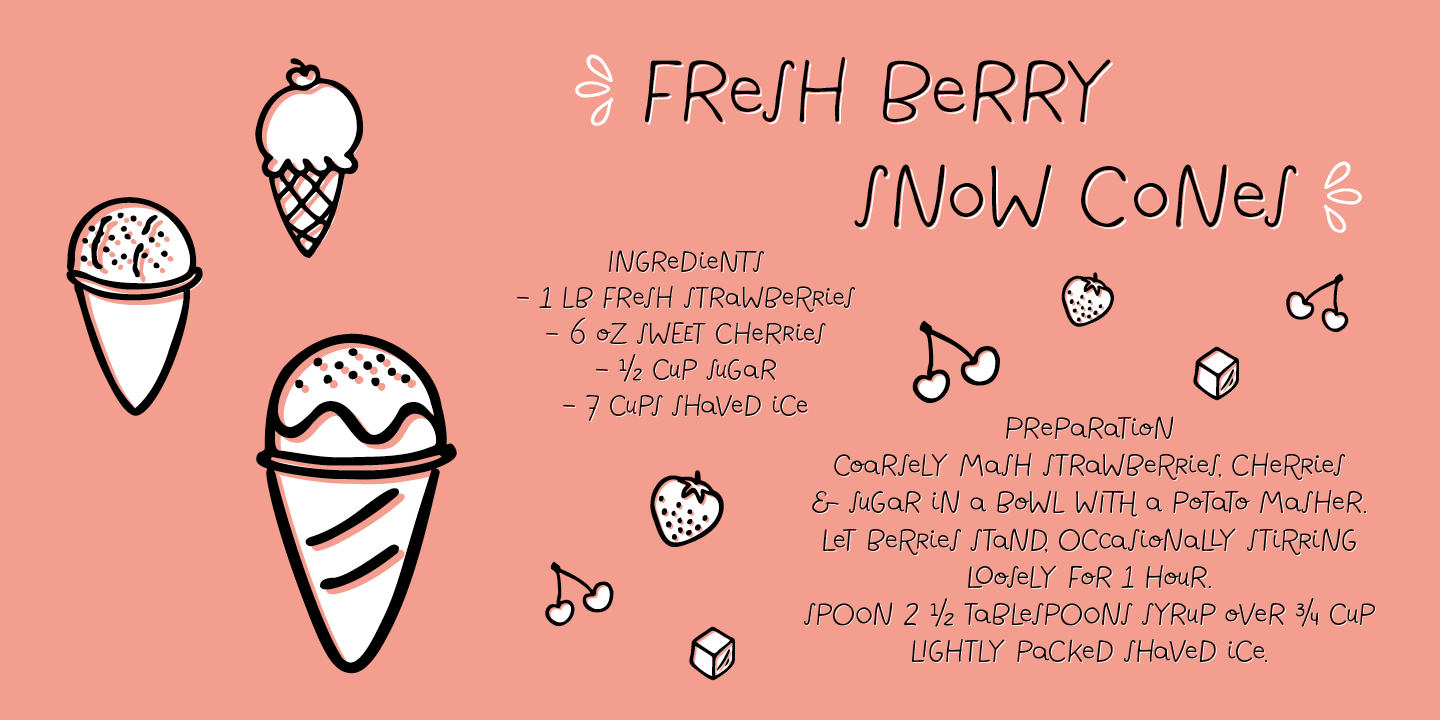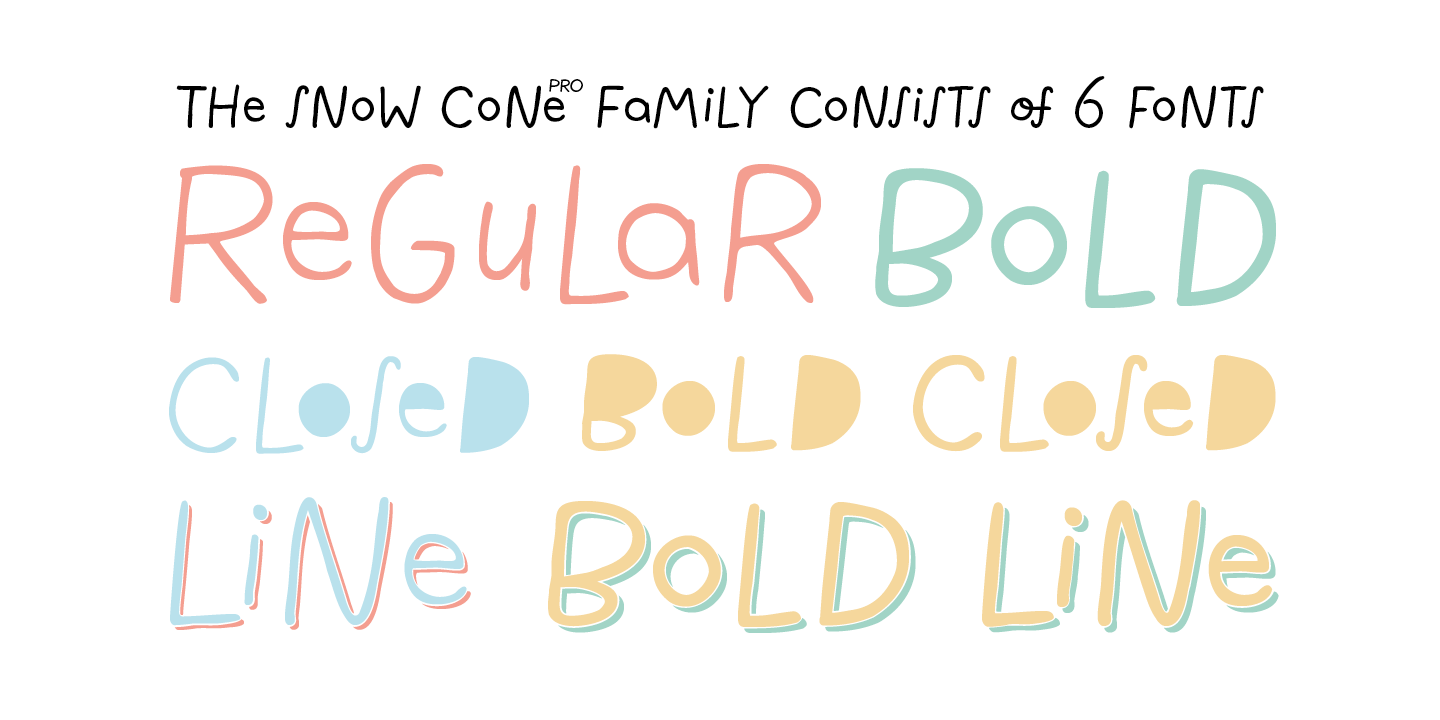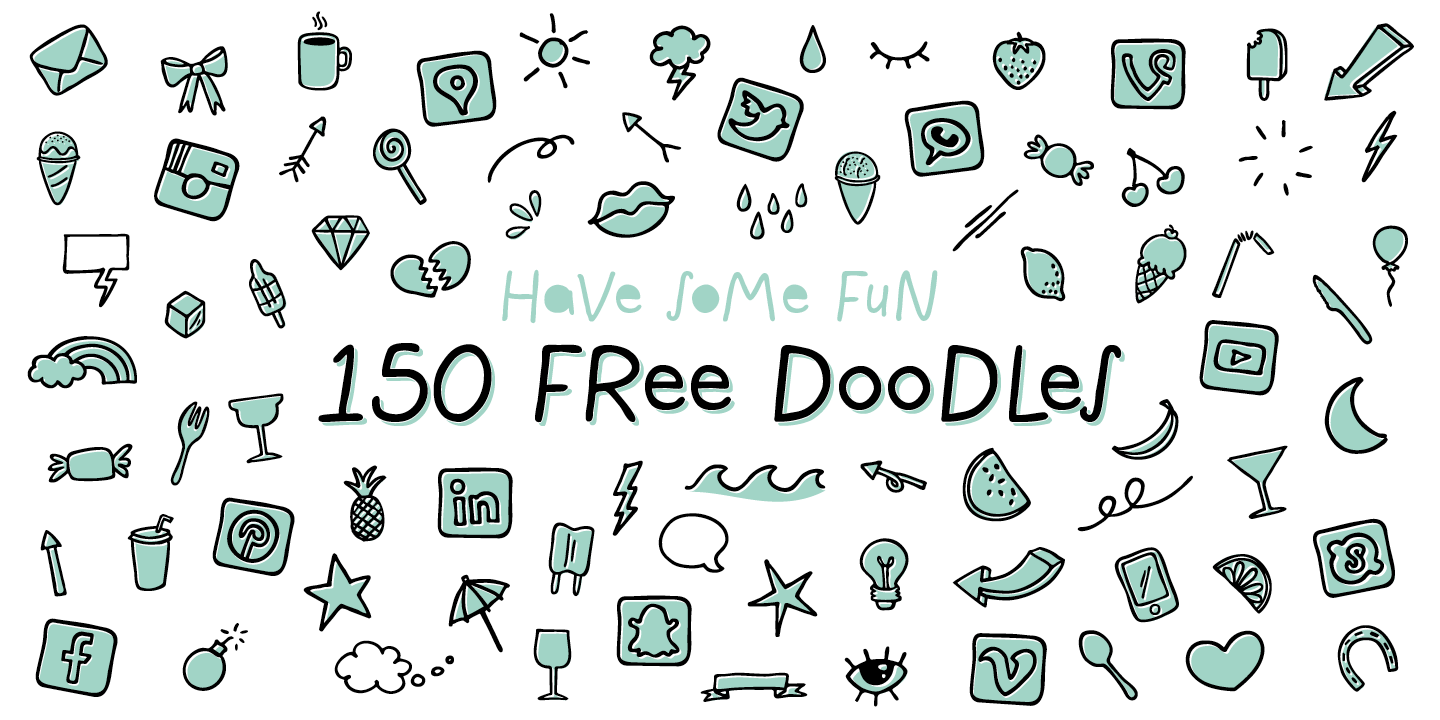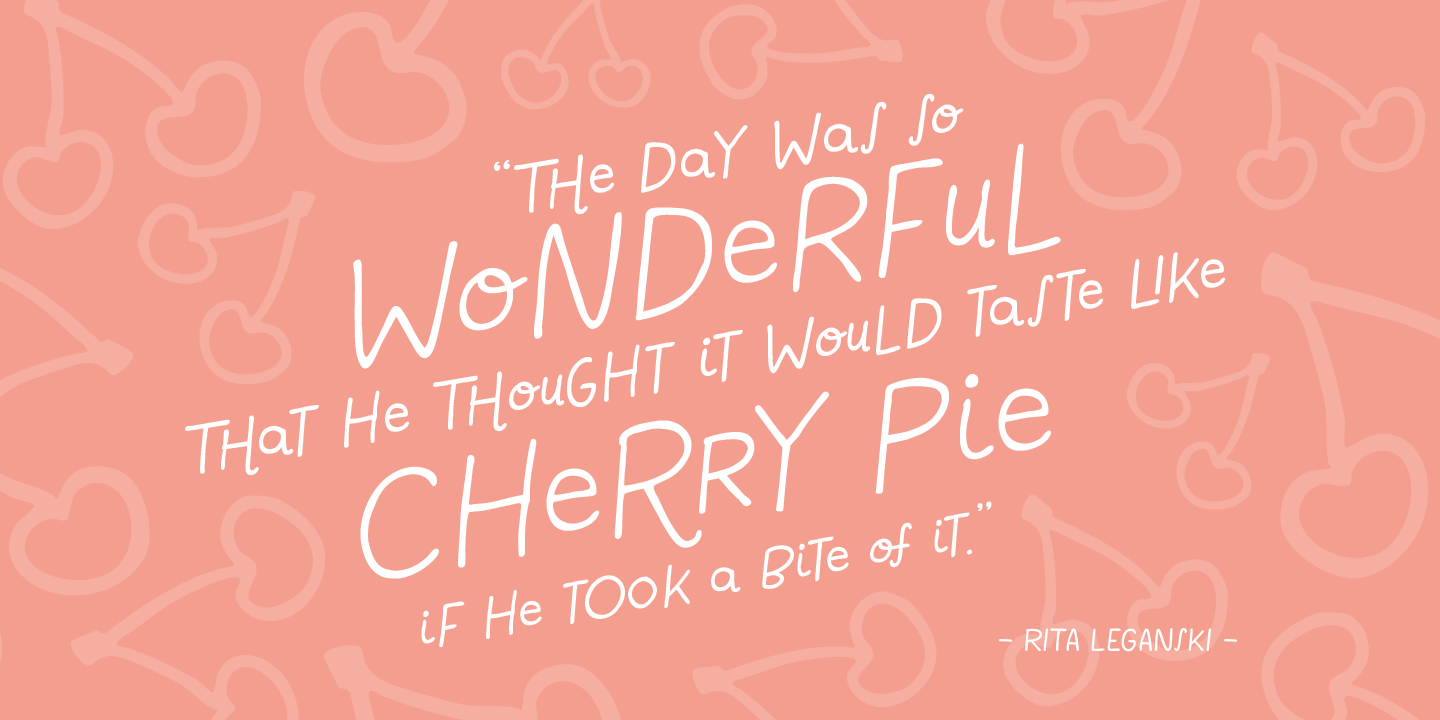
Snow Cone Pro
About Snow Cone Pro
Snow Cone Pro is a hand drawn font family consisting of 6 playful typefaces. Snow Cone Pro brings a fresh splash of summer to your designs. You can change the appearance of each font by playing with the open type features, such as interlocking pairs,…